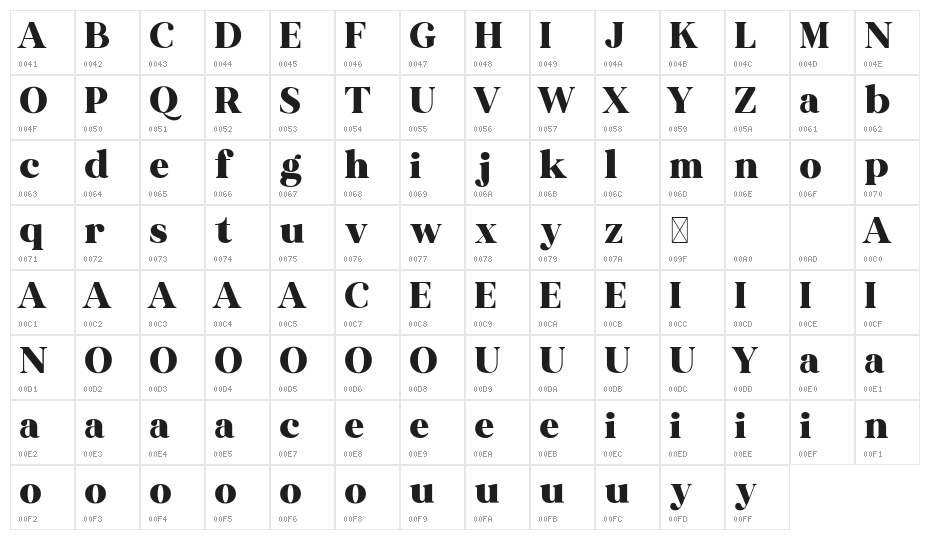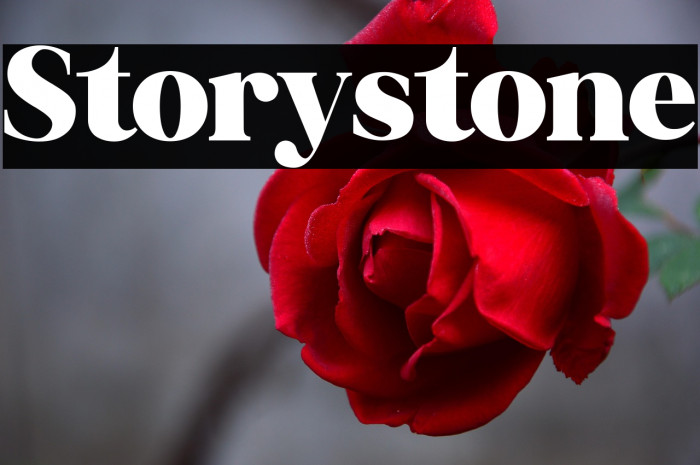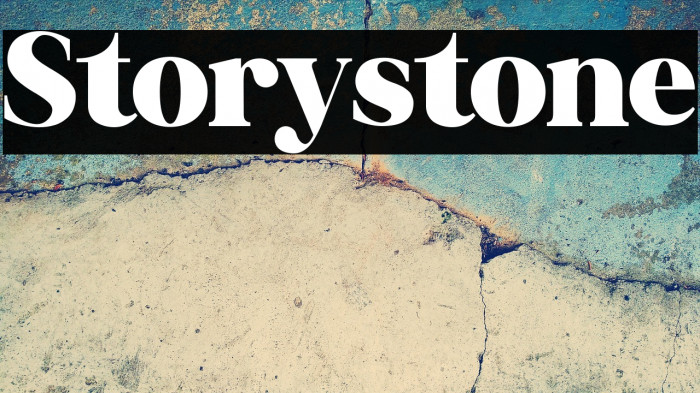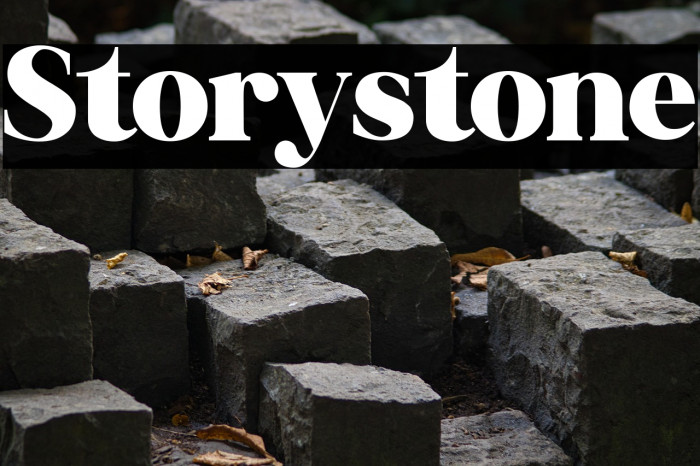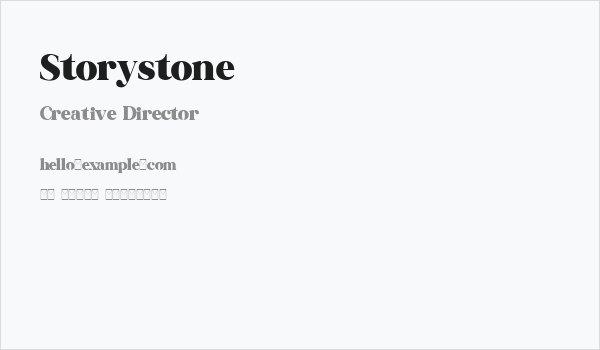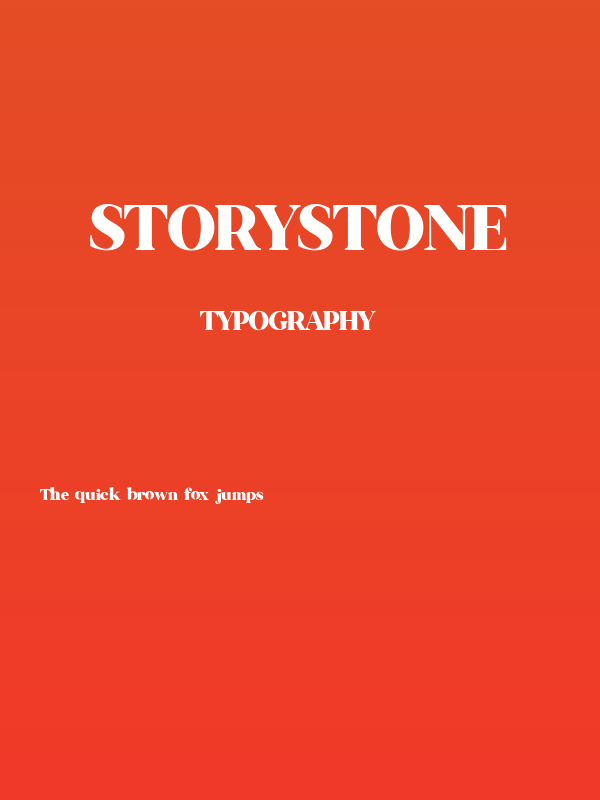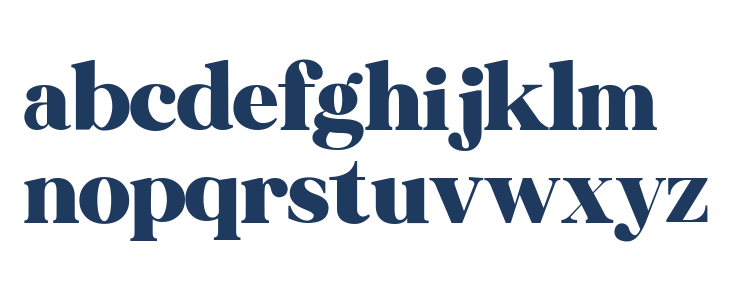
Storystone Font
Storystone Description
This font is a bold and striking serif typeface that exudes a sense of authority and elegance. The characters are well-defined with thick strokes, giving it a strong presence on the page. The serifs are pronounced, adding a classic touch to the overall design. The uppercase letters are particularly commanding, while the lowercase letters maintain a consistent weight and style. This font is versatile, suitable for both traditional and modern applications. Its boldness makes it ideal for headlines and titles, ensuring that the text stands out and captures attention.
| Overall Style | Classic |
| Proposed Projects | Ideal for book covers, magazine headlines, branding, and advertising materials. |